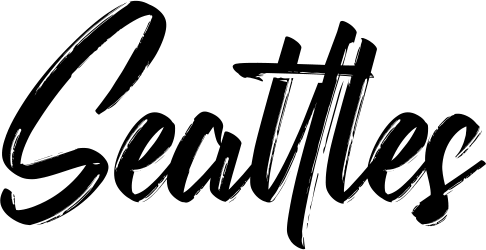
Seattles Font
Seattles font is one of the greatest sharp and brushed styles you have seen so far. This beach script font can be used to design summer and tropical flyers. Also, if you decide to include swimming classes in your plans, it is better to use letters of this font for the vital information of the classes.
In addition, we suggest this brush font for designing T-shirts, and creating campaign flyers despite not supporting small numbers.